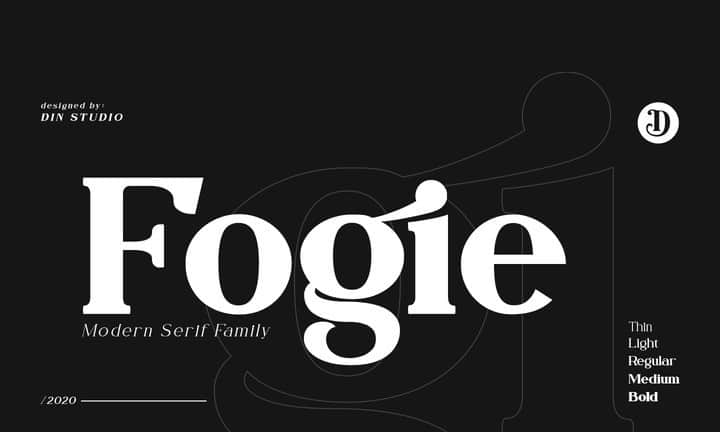
Fogie Serif Font Family
Fogie Font is a high-contrast, serif typeface with monoline stroke endings and angled stems. With weights ranging from thin to black and matching italics, there are a variety of applications that the fonts can be used for: print, web, branding, advertising, magazines, products, packaging, labels, etc.